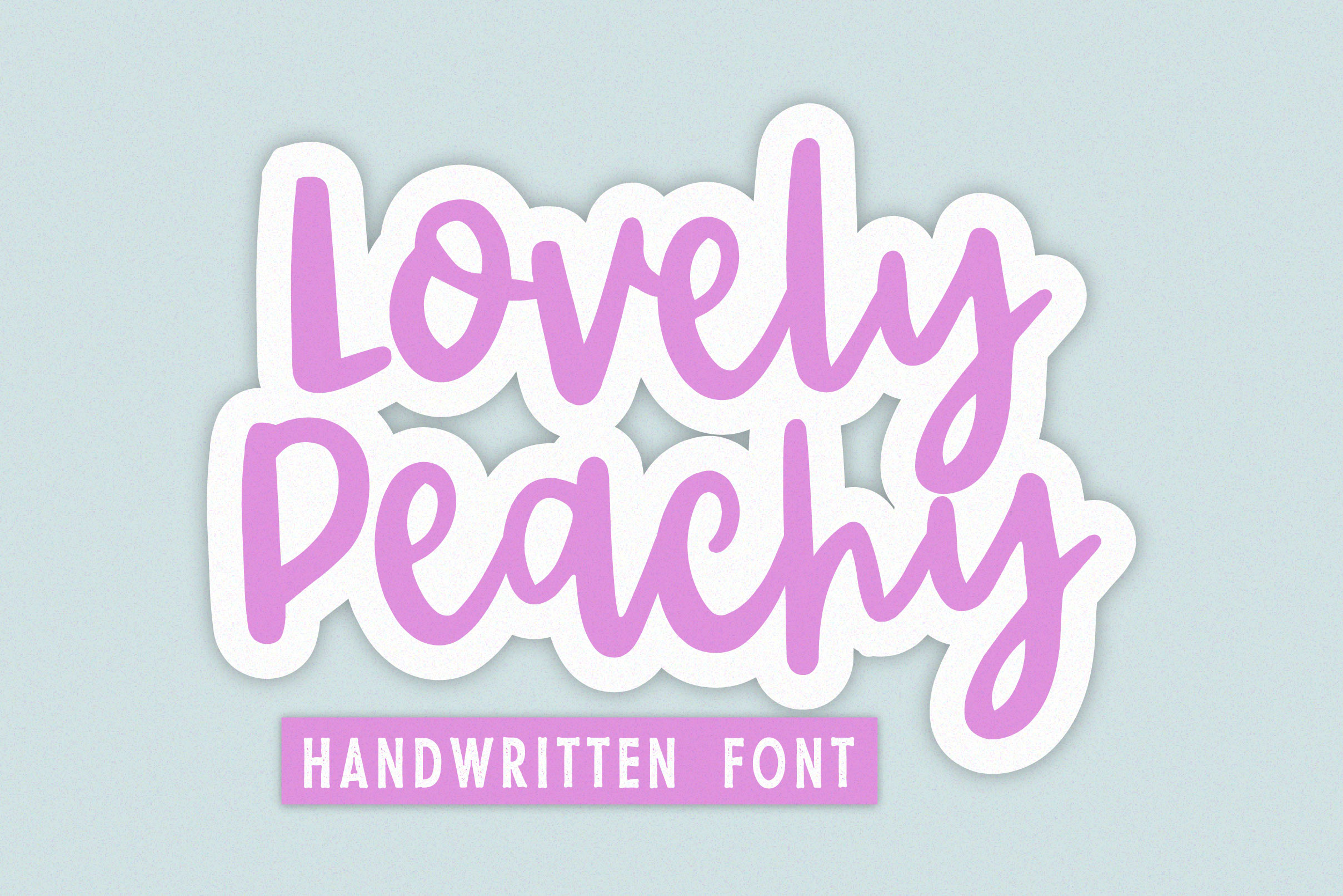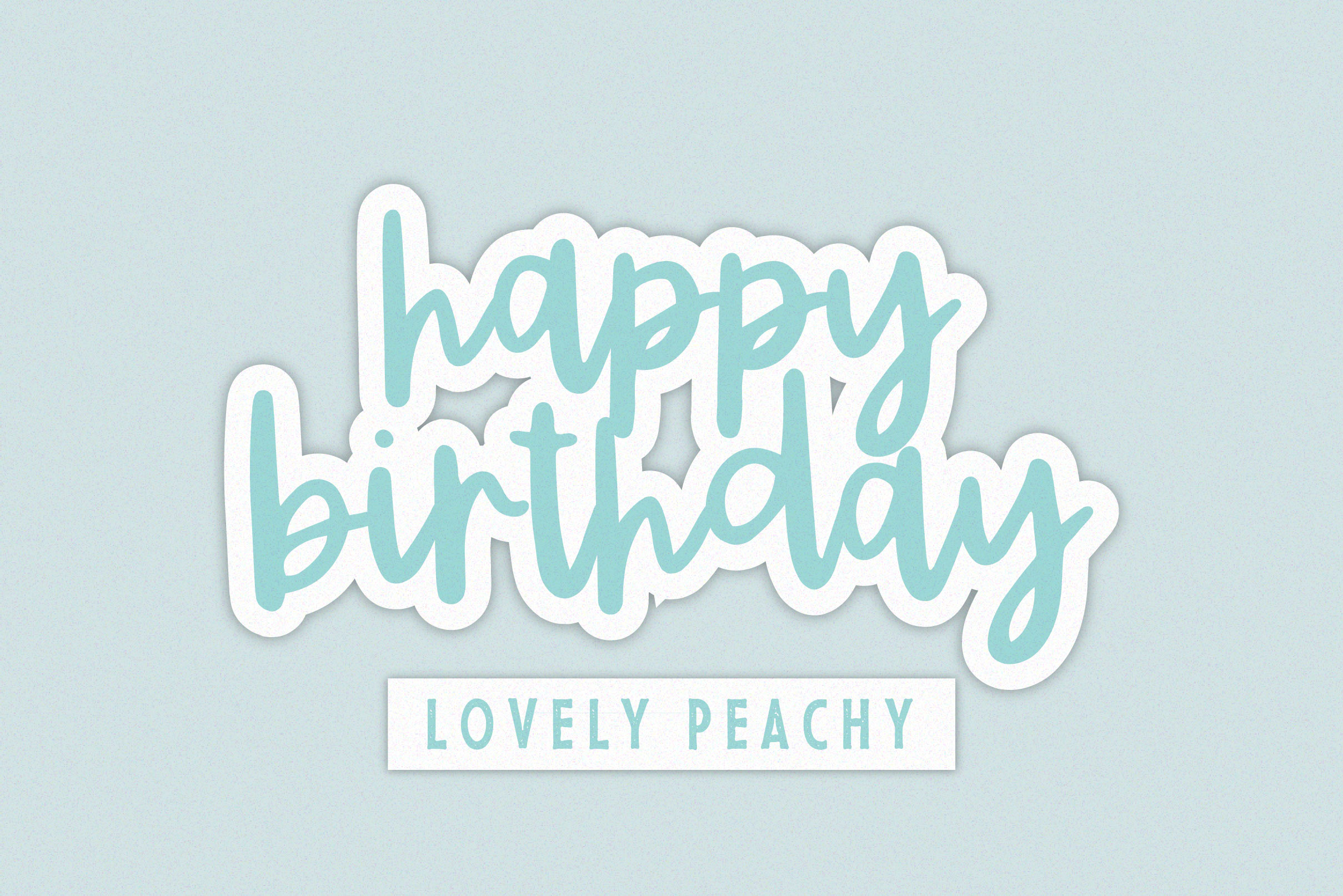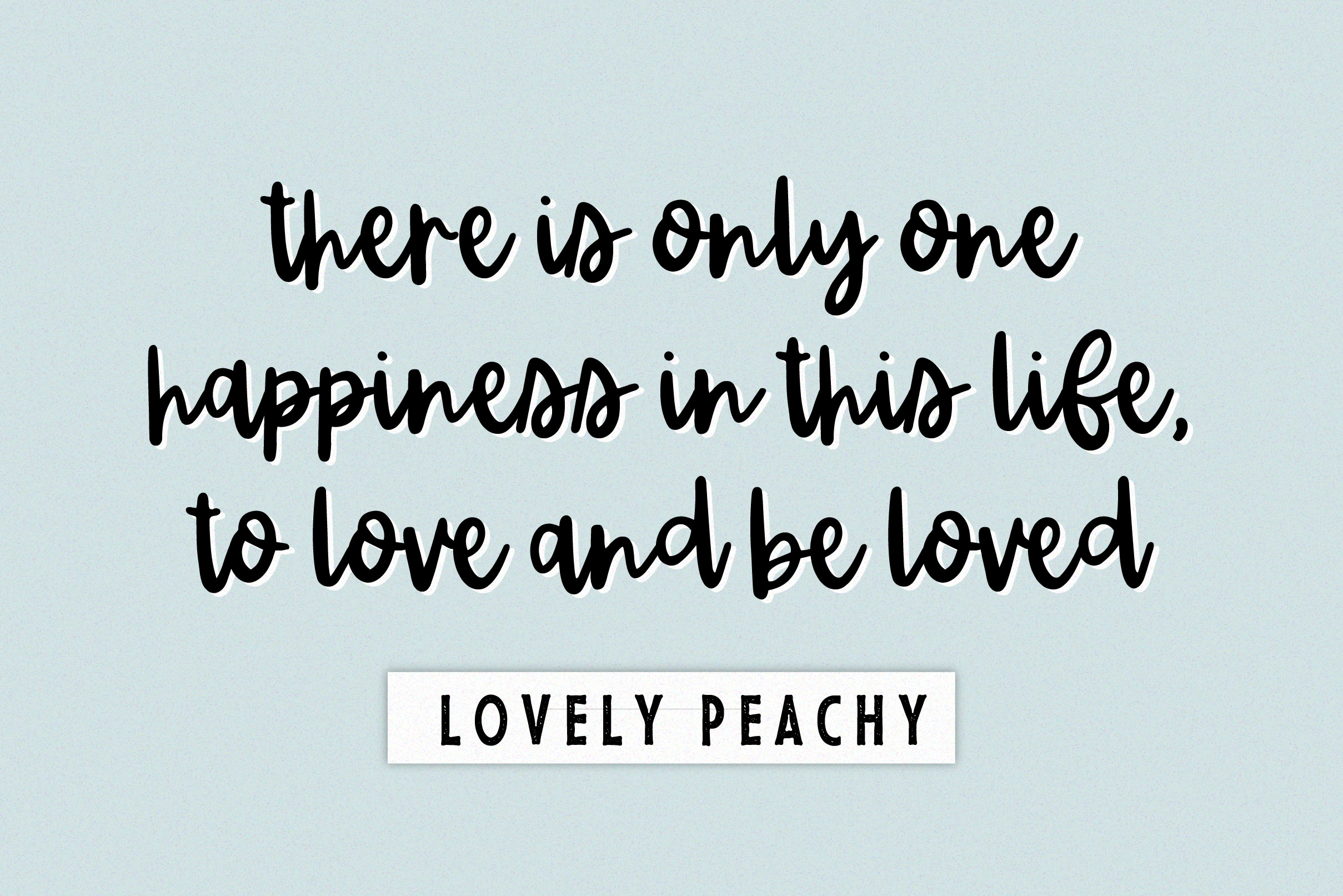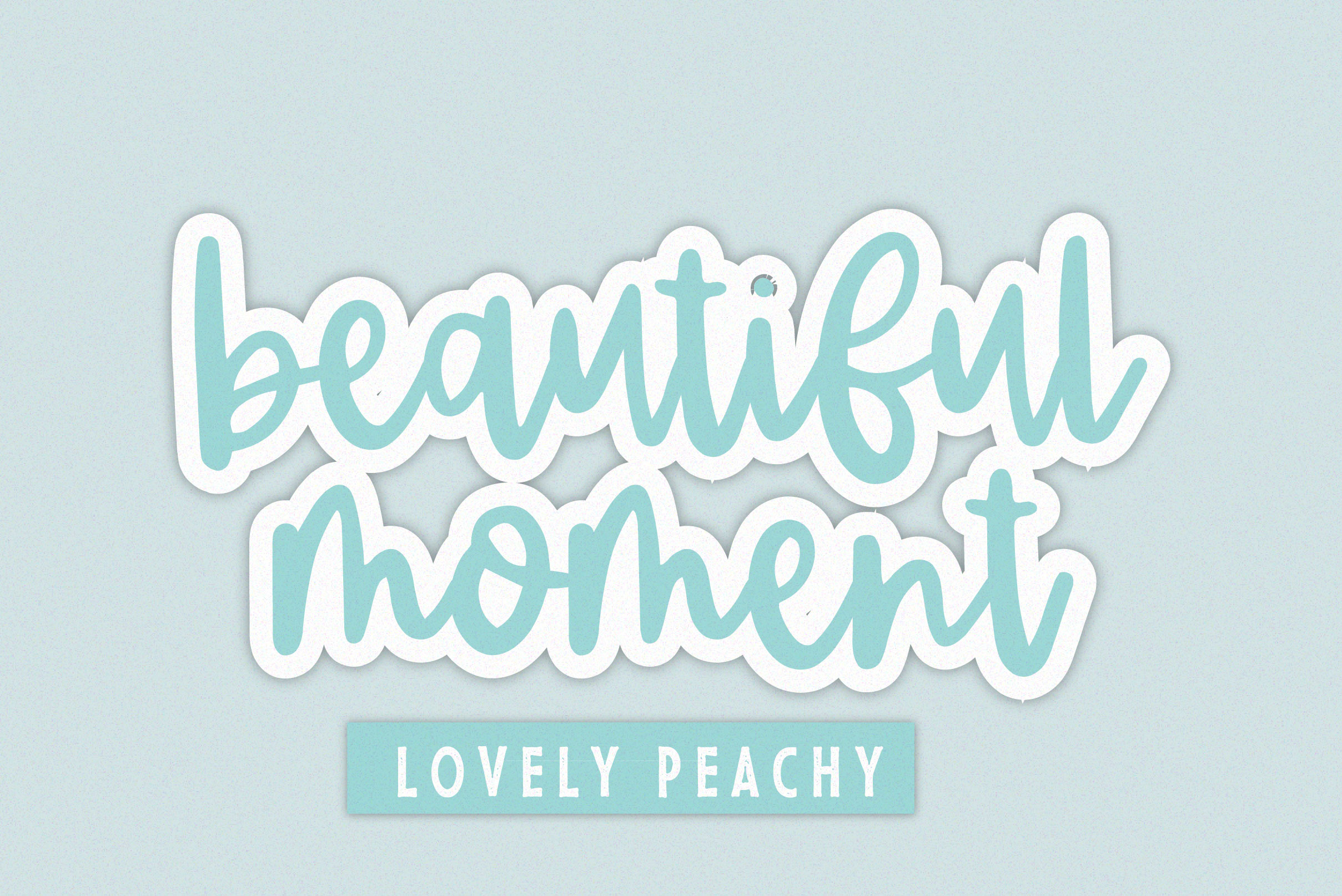
Lovely Peachy Font
Lovely Peachy Script Font is a relaxed and timeless handwritten font. Fall in love with its incredibly versatile style and use it to create gorgeous wedding invitations, beautiful stationary art, eye-catching social media posts, and much more!